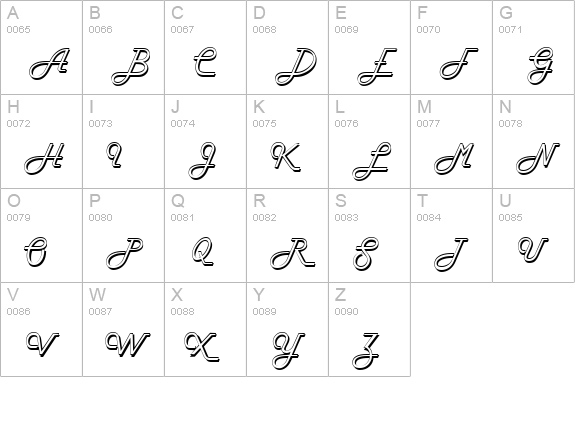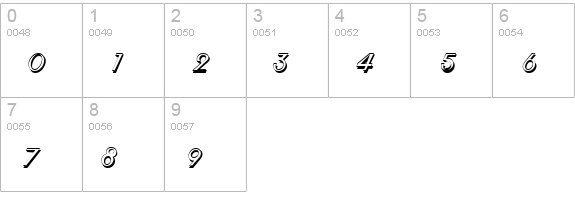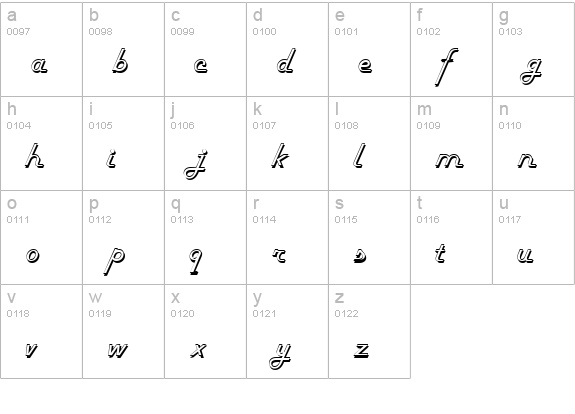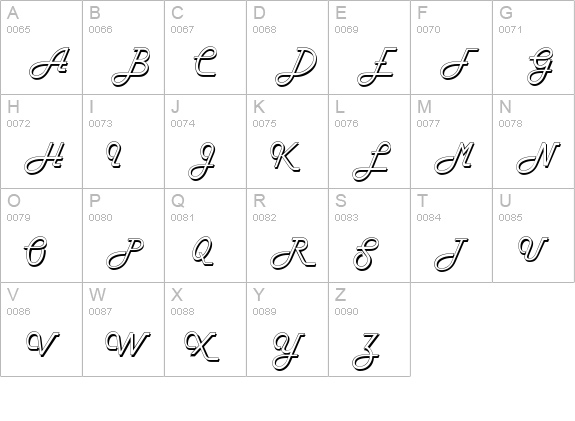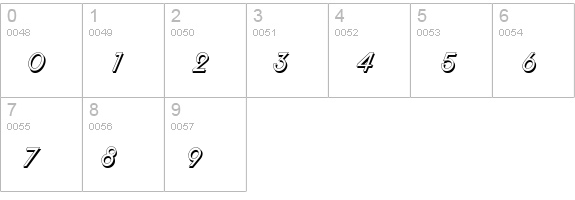
FiftiesHollow Regular Font Details
FiftiesHollow Regular is the standard, neutral variant in the FiftiesHollow typeface family \xE2\x80\x94 well suited to general body text, paragraphs, and standard typographic work.
FiftiesHollow Regular font is a charming and nostalgic typeface that captures the essence of the 1950s era with its retro style and playful design. This font features hollow letters with a classic yet modern twist, making it perfect for adding a vintage touch to any project. Whether you're creating posters, invitations, or branding materials, FiftiesHollow Regular font is sure to make a statement. The best part? FiftiesHollow Regular font is available for free download at FontsMarket.com. Simply visit the website and start using this delightful font in your designs today. Don't miss out on this fantastic opportunity to enhance your projects with the timeless appeal of FiftiesHollow Regular font.